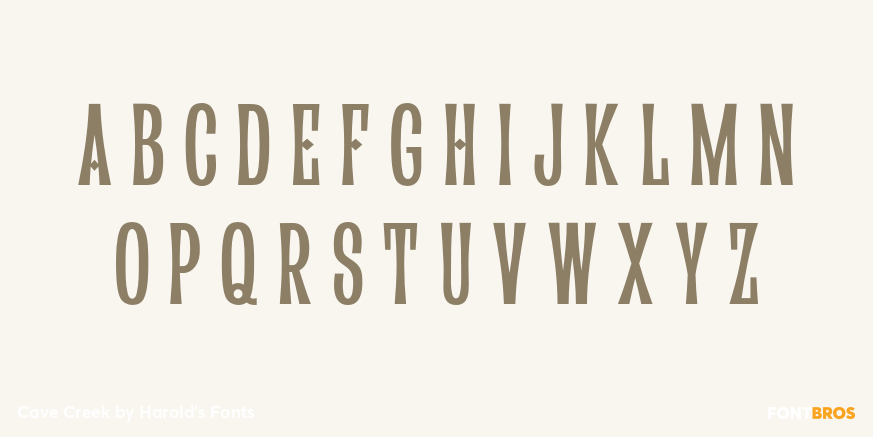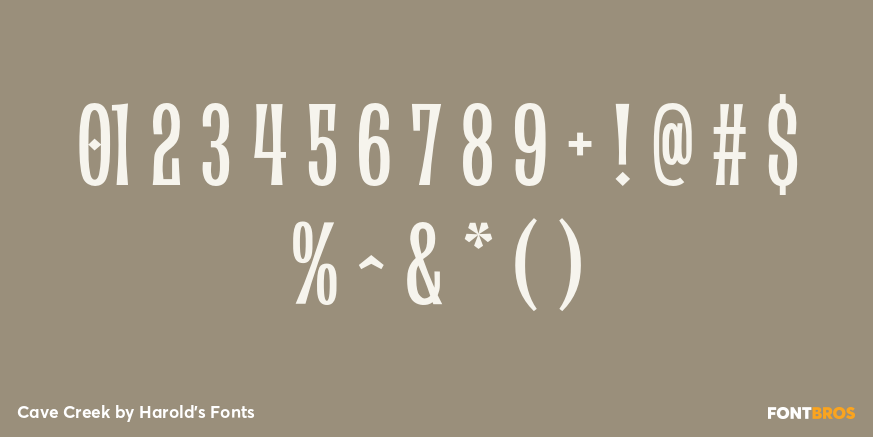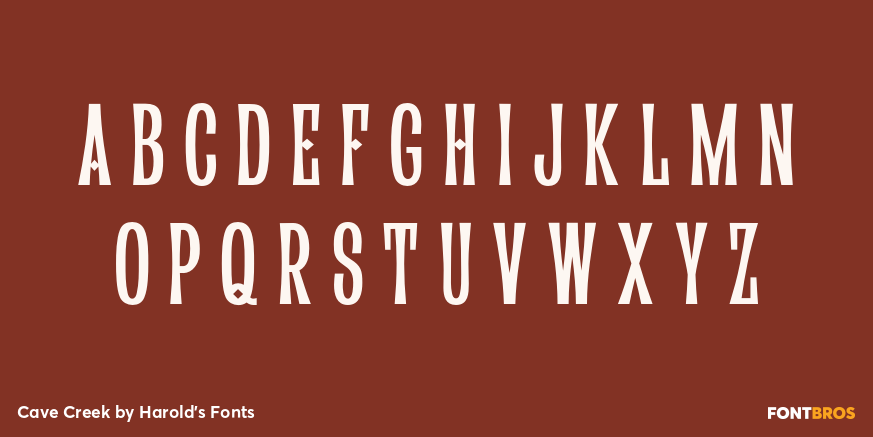
Cave Creek
Font Family by Harold's Fonts
CAVE CREEK is a narrow sans serif font. The concave strokes and strategic diamonds give it a sort of sparkle. It was inspired by the logo of a 1958 cowboy TV series, reading as both Western and mid-century modern.